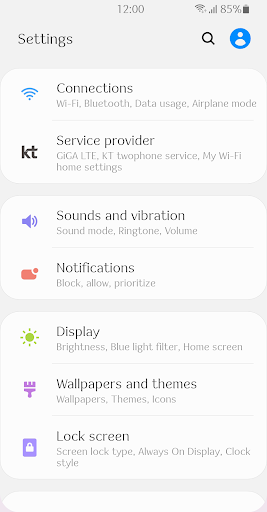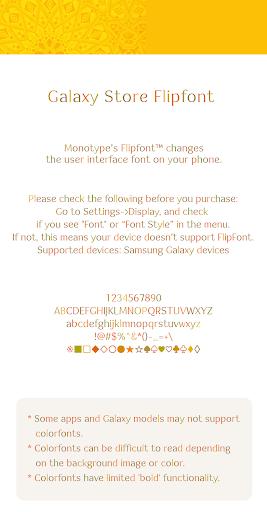
ZF Marigold
This font is optimized for good looks and comfort.
Moderated serifs and a comfortable structure show a stable flow of writing.
You smile shyly on a brilliantly green spring day.
Your scent gently blooms among the flowers.
Like happiness that must come, you have come to me.